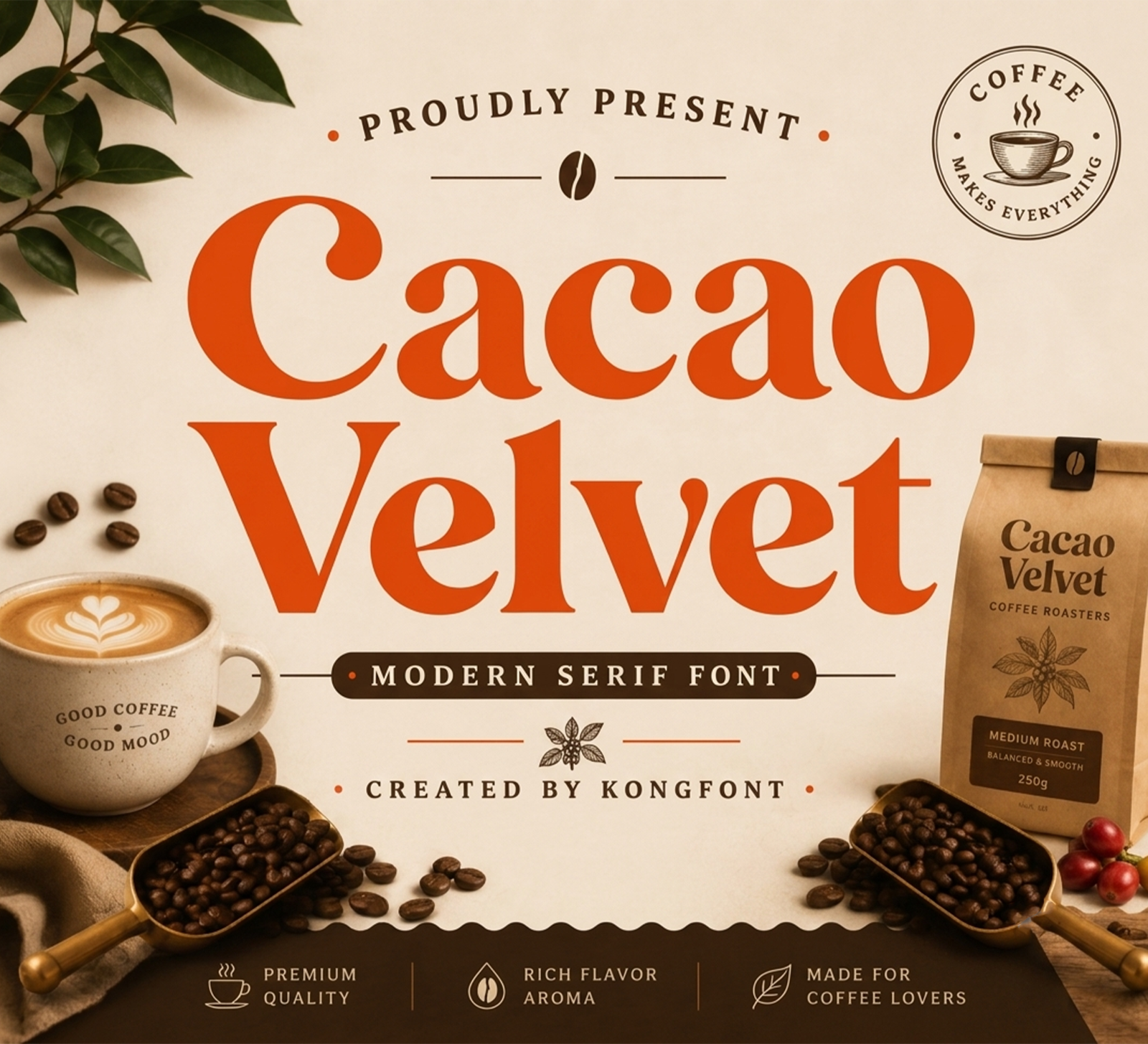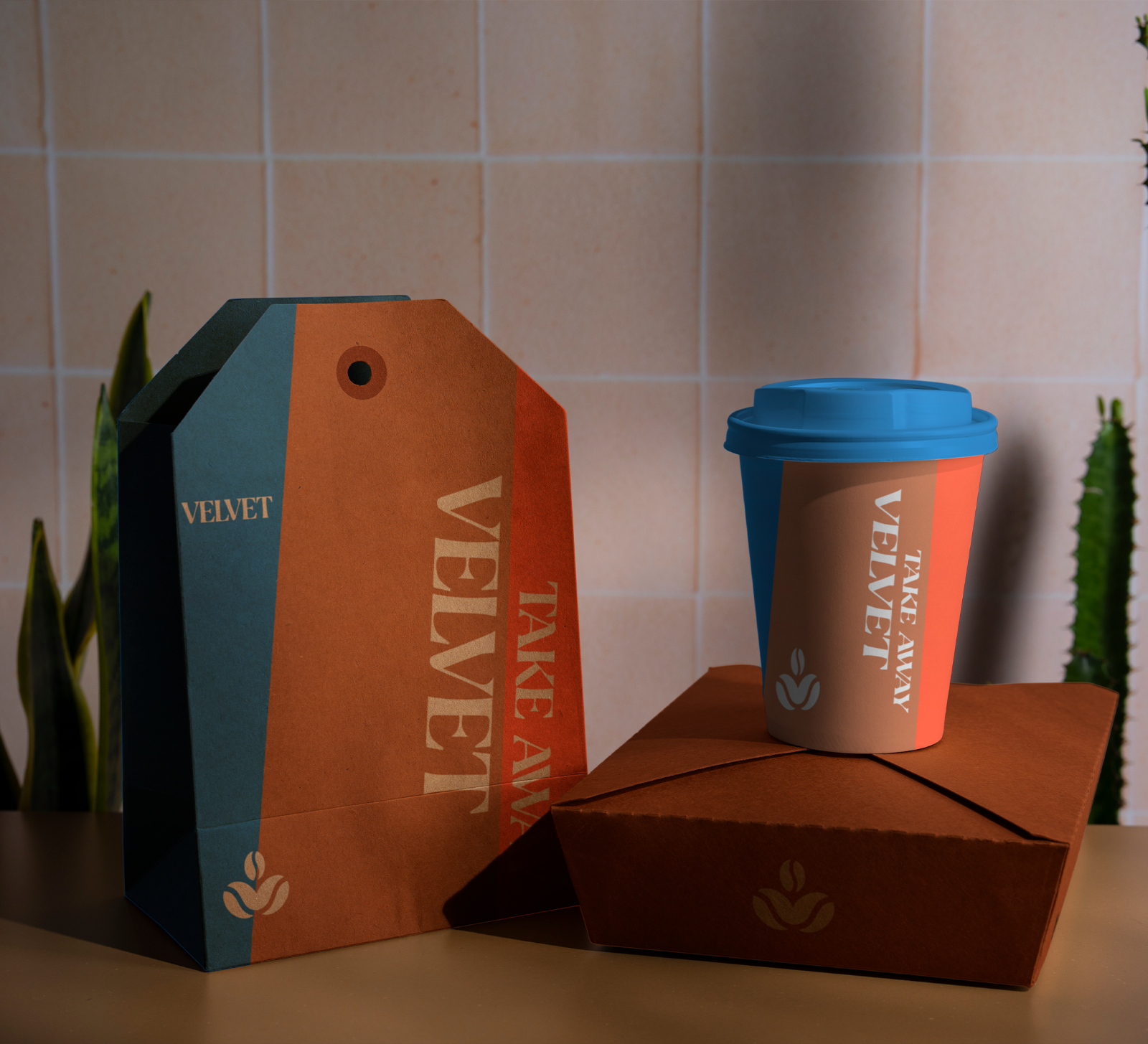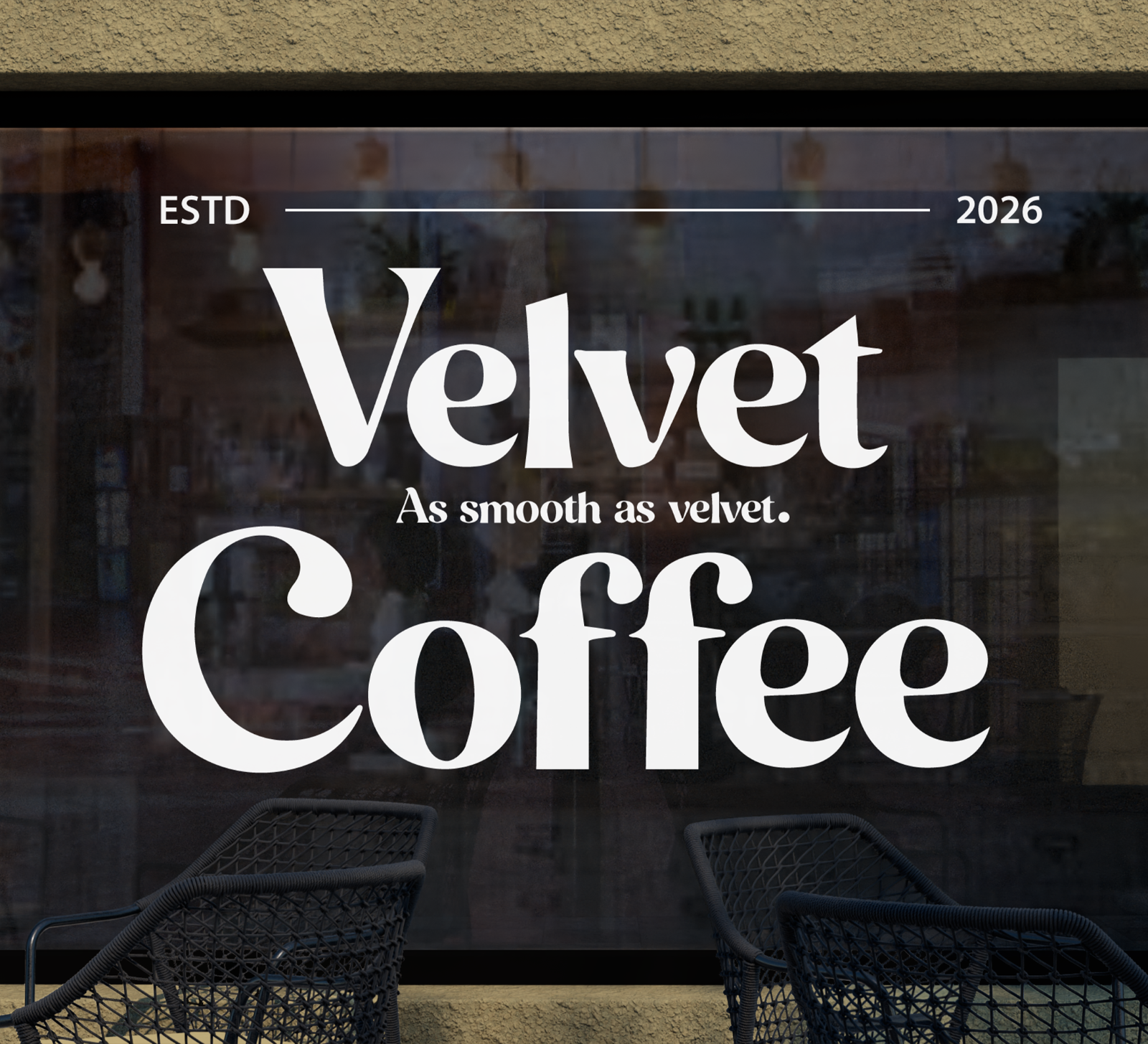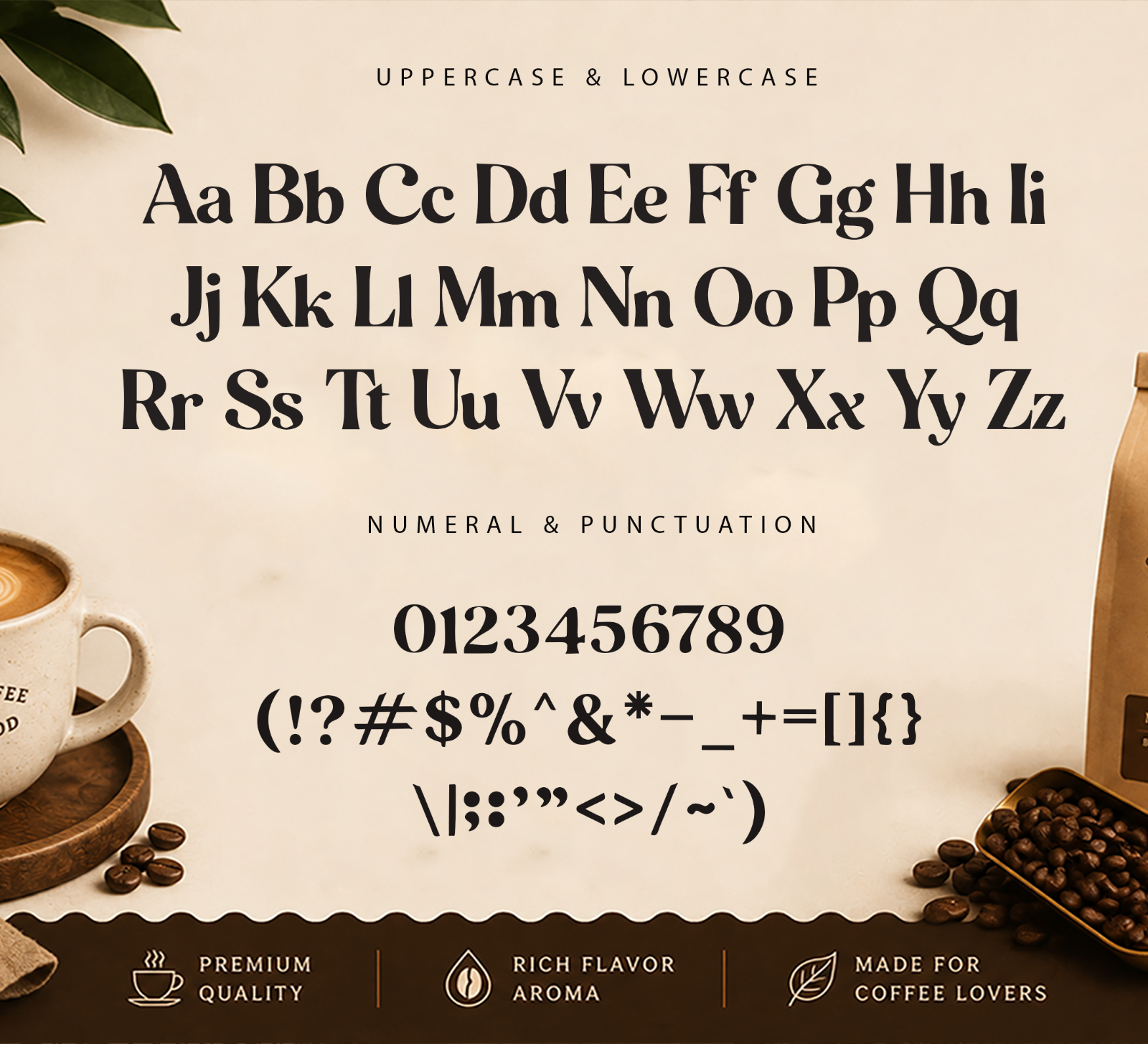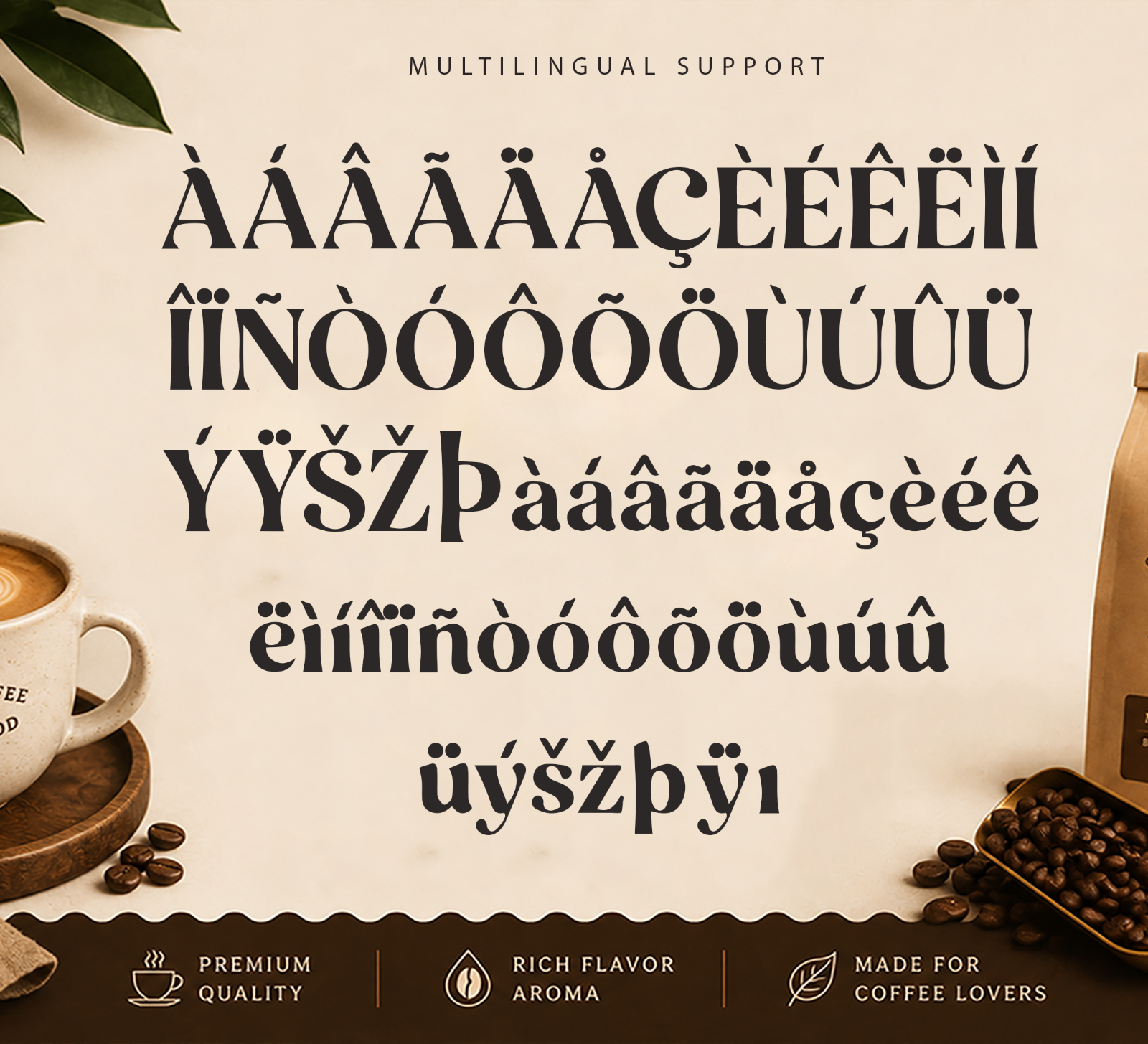
Cacao Velvet is a modern serif font with bold letterforms, smooth curves, and a refined contemporary look. Its clean yet elegant style makes it perfect for creating memorable branding and stylish display typography.
• Branding
• Logos
• Business cards
• Blog headers
• Quotes
• Editorial titles
• Packaging
• Creative typography